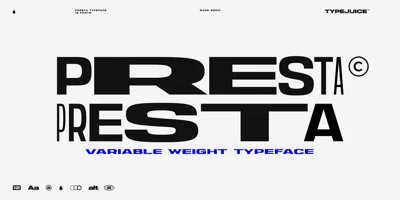
Presta Font
Presta Font is perfect for premium service provider branding, professional consultancy communications, high-end business card designs, corporate presentation materials, executive coaching firm logos, luxury concierge service marketing, professional development platform interfaces, and distinguished corporate training materials.
Presta Font is exciting because it embodies the essence of professional excellence with its precisely balanced letterforms that convey both competence and approachability, capturing the sophisticated confidence of industry leaders who deliver exceptional results through expertise and dedication. The typeface represents the perfect synthesis of professional authority and client-focused service, creating an immediate sense of trustworthy capability and refined professionalism that resonates with those who demand the highest standards of performance.
Presta Font family includes Light, Regular, Medium, Bold, and Black weights, each with elegant italic variants and professional-grade character support, providing designers with comprehensive typography tools for creating communications that celebrate service excellence and professional distinction across all business applications.
Whether you're developing a professional services brand identity, designing corporate marketing materials, or creating executive-level business communications, Presta Font offers unmatched professional authenticity and service-oriented appeal. This distinguished typeface perfectly balances corporate authority with client accessibility, ensuring your communications resonate with discerning business audiences who appreciate both expertise and exceptional service delivery. The font's refined character structure and professional rhythm make it particularly effective for organizations that emphasize performance excellence, client relationships, and the kind of professional distinction that builds lasting business success. Business professionals consistently choose Presta Font when projects require typography that communicates competence, reliability, and the kind of service-focused approach that transforms professional relationships into strategic partnerships, making it indispensable for professional services branding, corporate communications, and any application where refined typography can reflect the values of excellence, integrity, and the unwavering commitment to client success that defines the most respected professional service providers who consistently exceed expectations through their dedication to quality, innovation, and the kind of personalized attention that creates lasting value for every client they serve.